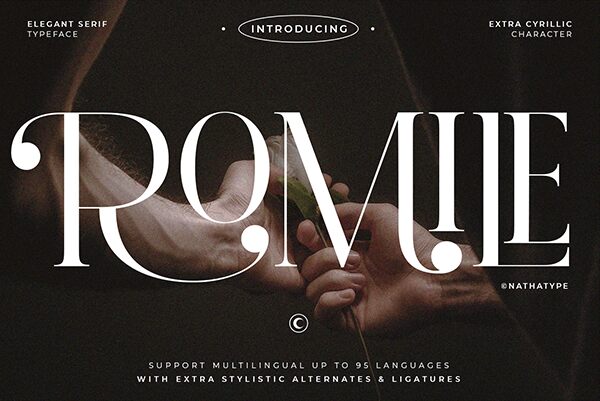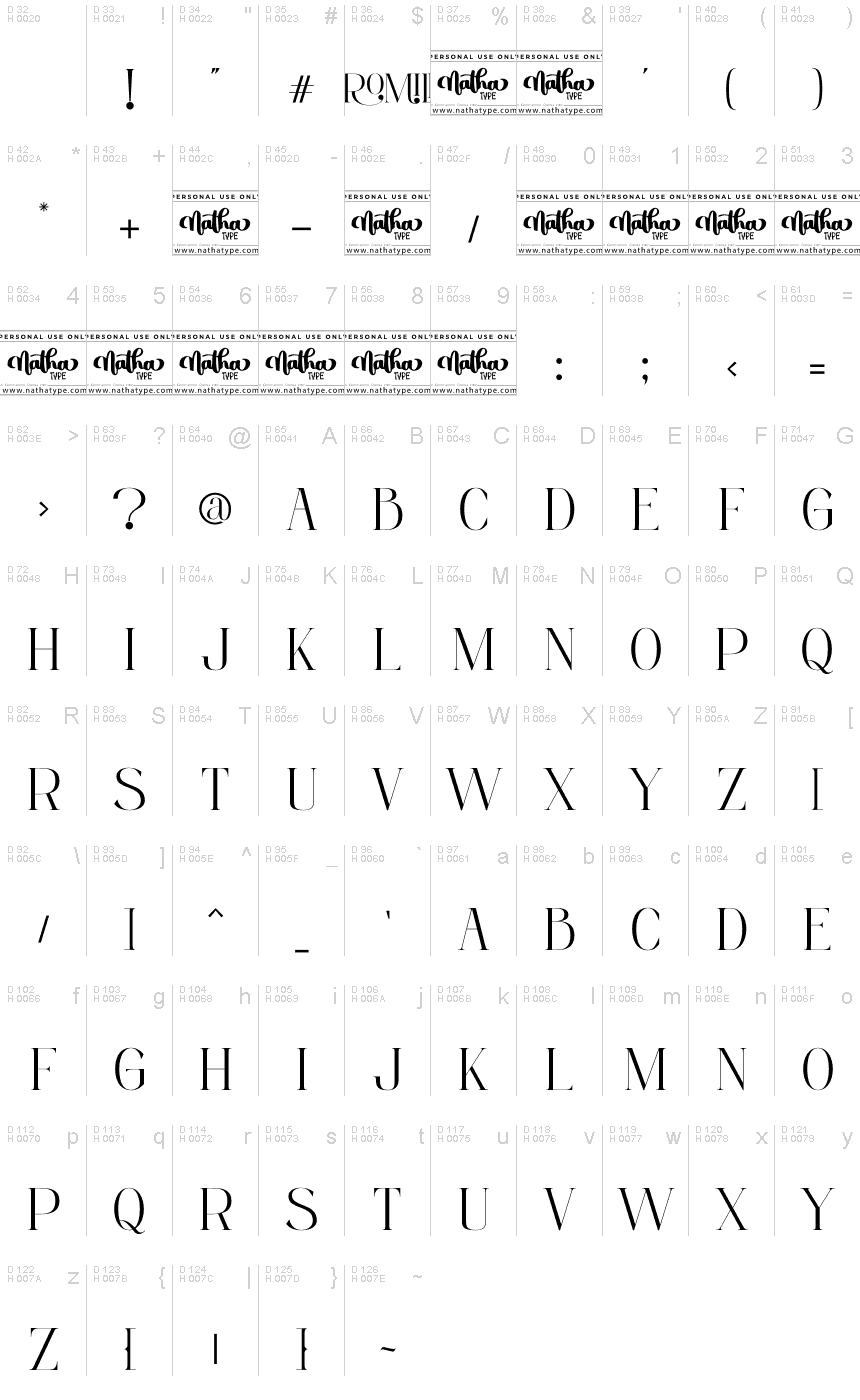
Romile is a captivating semi-light serif font designed by Din Studio. With its graceful curves and elegant strokes, Romile adds a touch of sophistication to any project.
Best suited for branding and editorial designs, this semi-condensed typeface brings a refined look to logos, book covers, and magazine layouts. Its clean lines make it perfect for modern websites seeking a classic yet contemporary feel. Romile's versatility allows it to shine in various projects such as packaging design, invitations, and even social media graphics.
Elevate your creations with the timeless charm of Romile font.